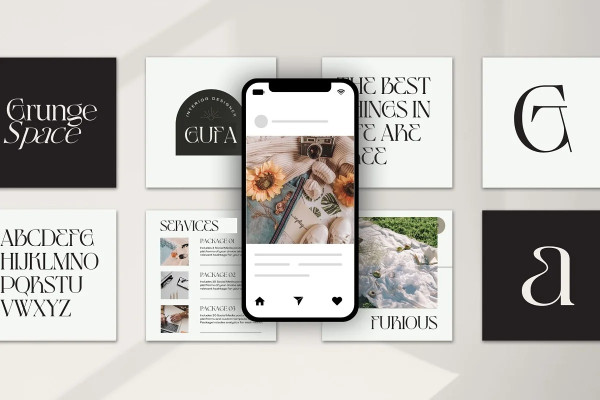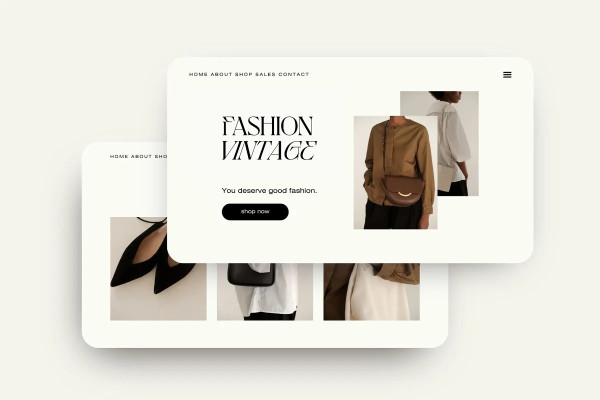
Baket Fashion Font
Baket Fashion Font offers beautiful typographic harmony for a diversity of design projects, including logos & branding, social media posts, advertisements & product designs.
Inspired by the elegance of classic typography and the beauty of calligraphy, this font exudes a sense of refined aesthetics. Its graceful strokes and balanced proportions make it an excellent choice for luxury branding, high-end invitations, editorial design, and formal occasions.